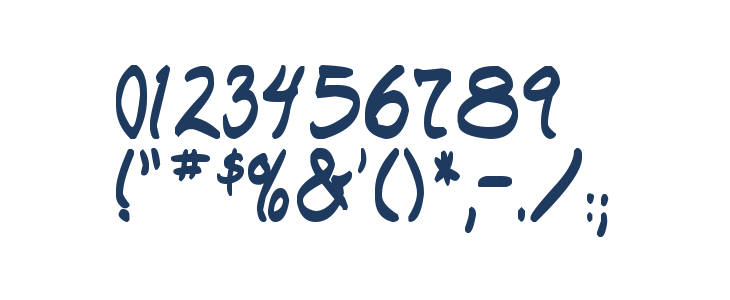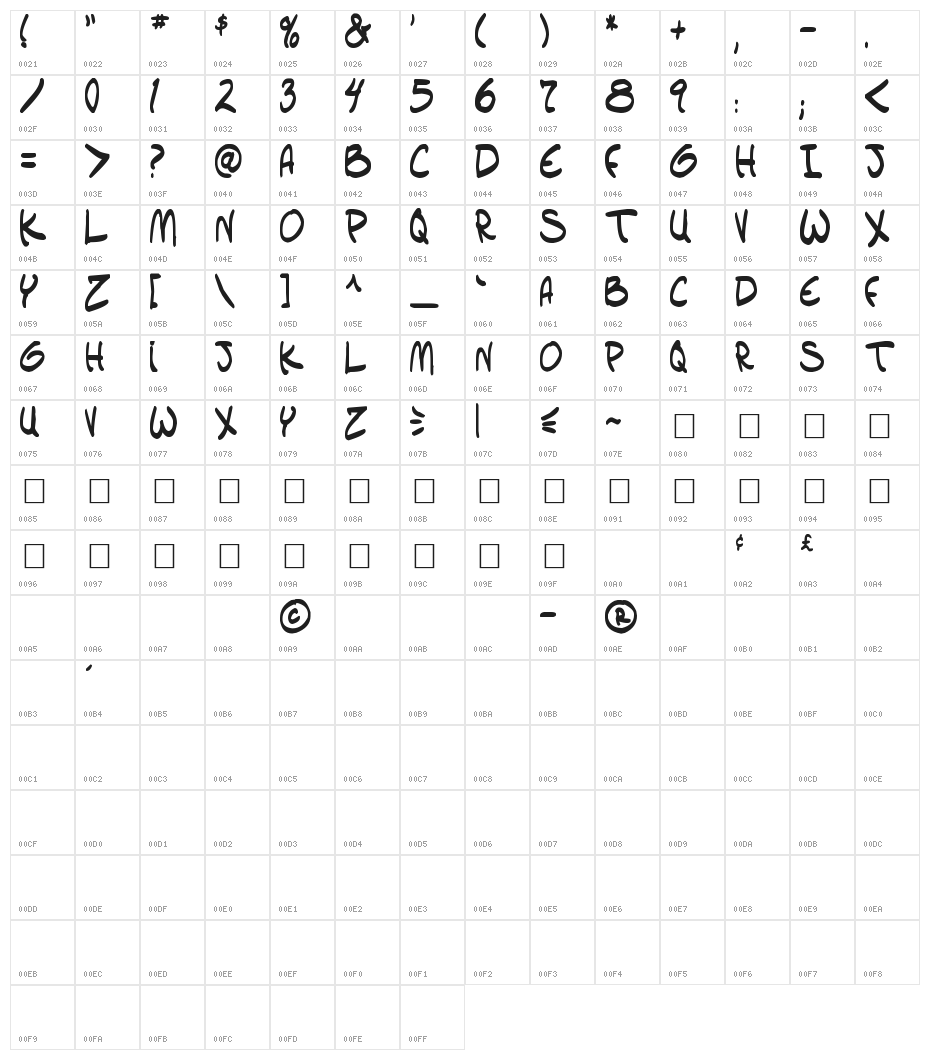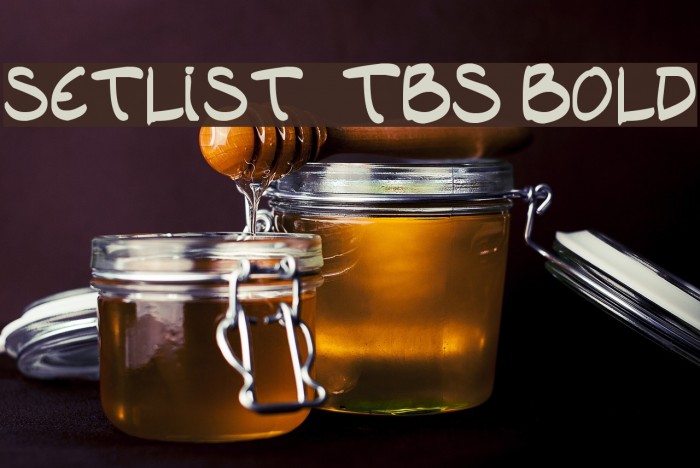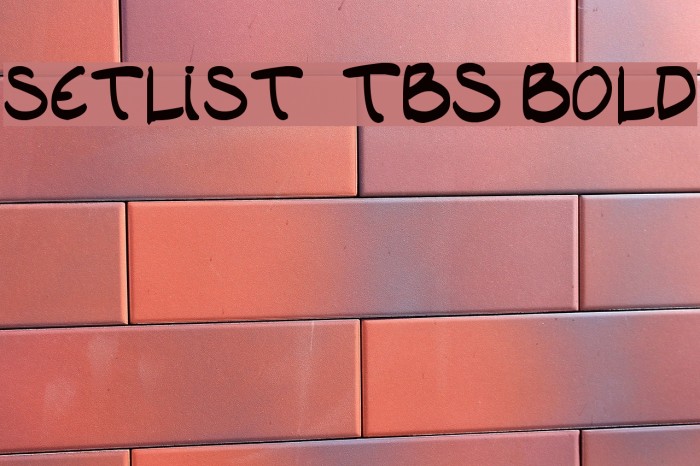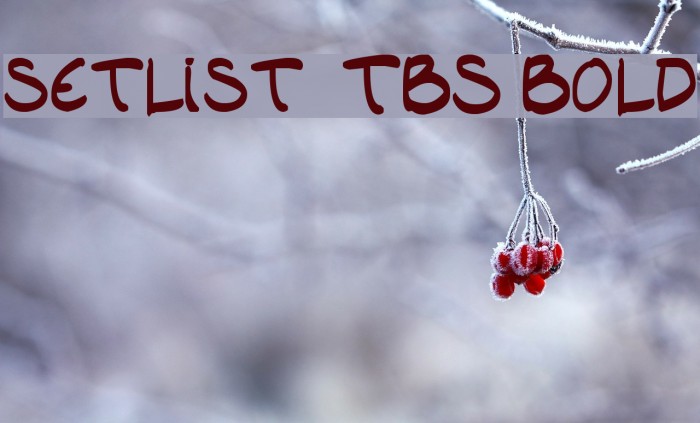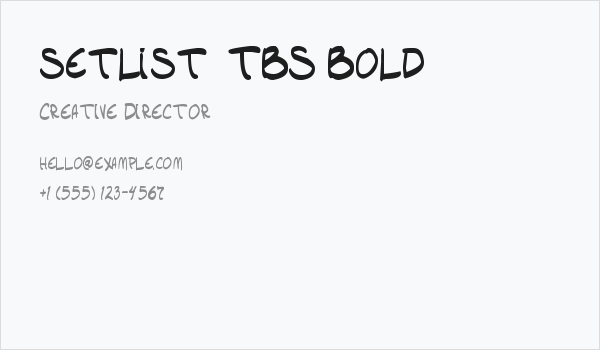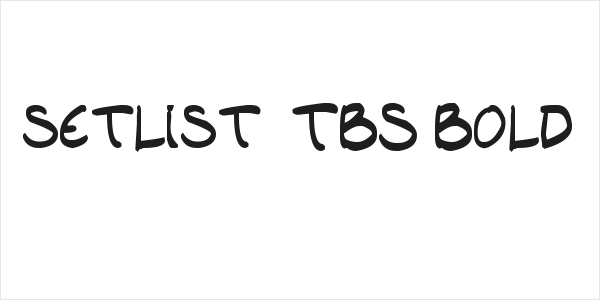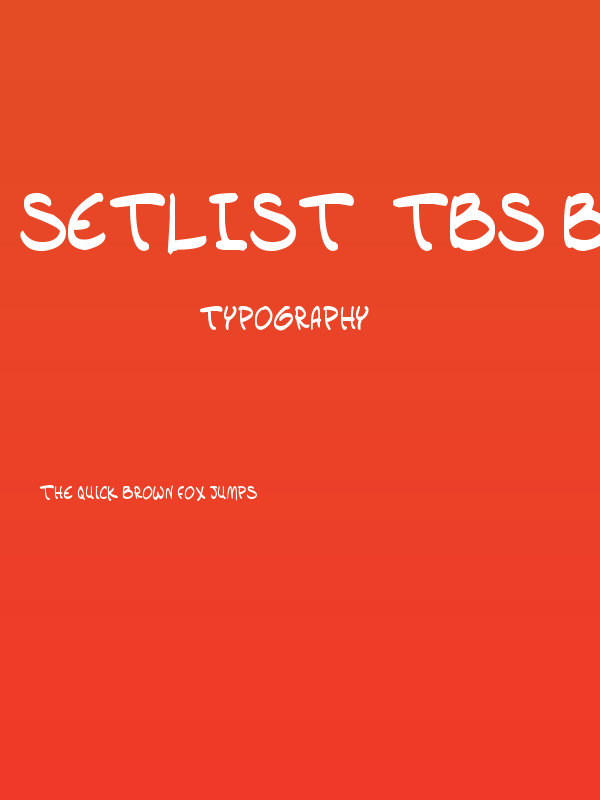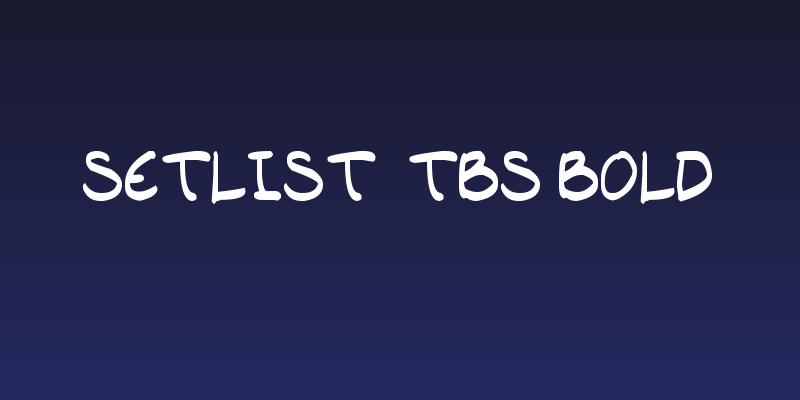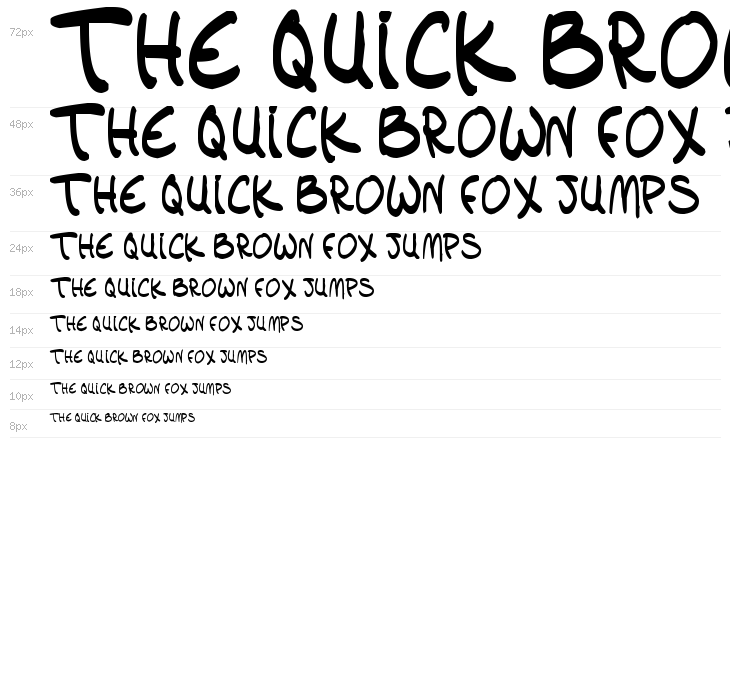
setlist TBS Bold Font
setlist TBS Bold Description
This font features a bold and playful handwritten style, characterized by its thick strokes and casual, informal appearance. The letters are rounded and slightly irregular, giving them a dynamic and energetic feel. The uppercase and lowercase letters maintain a consistent style, with a slight slant that adds to the font's lively character. The numerals are bold and easy to read, matching the overall aesthetic of the alphabet. Special characters are included, maintaining the same playful and bold design. This font is perfect for projects that require a fun and approachable look.